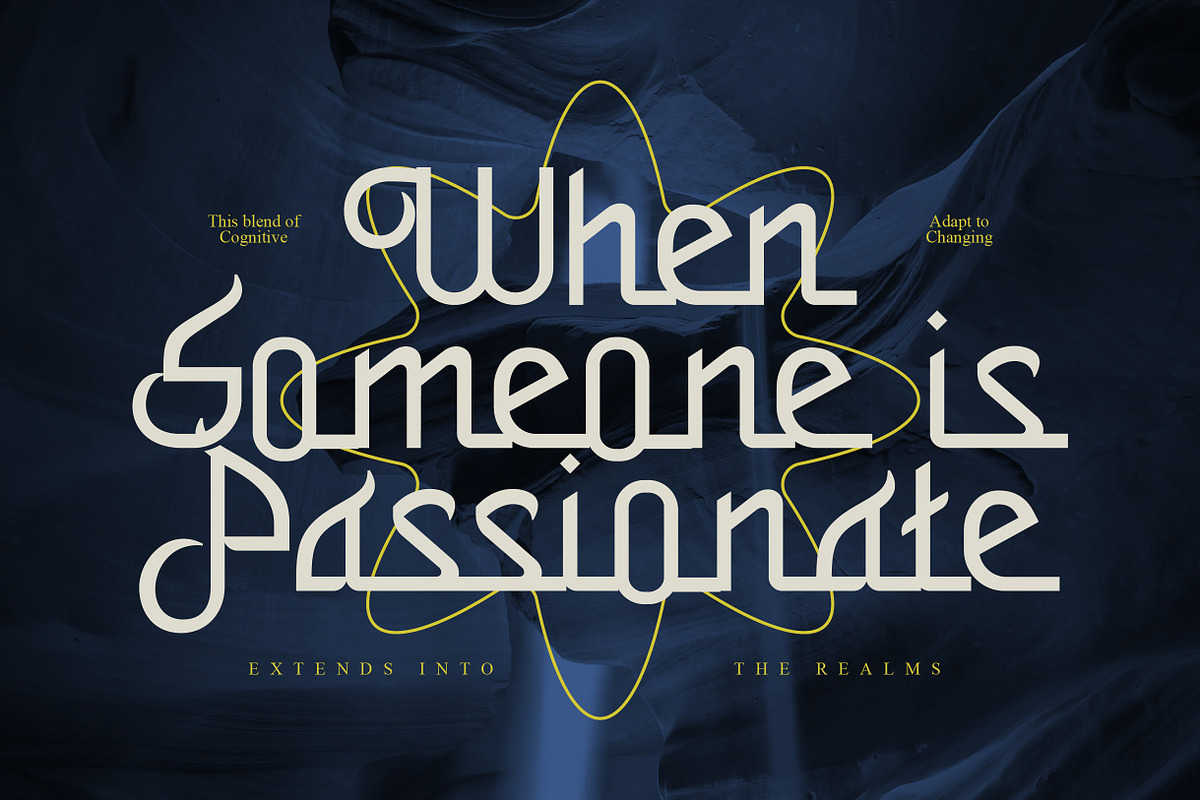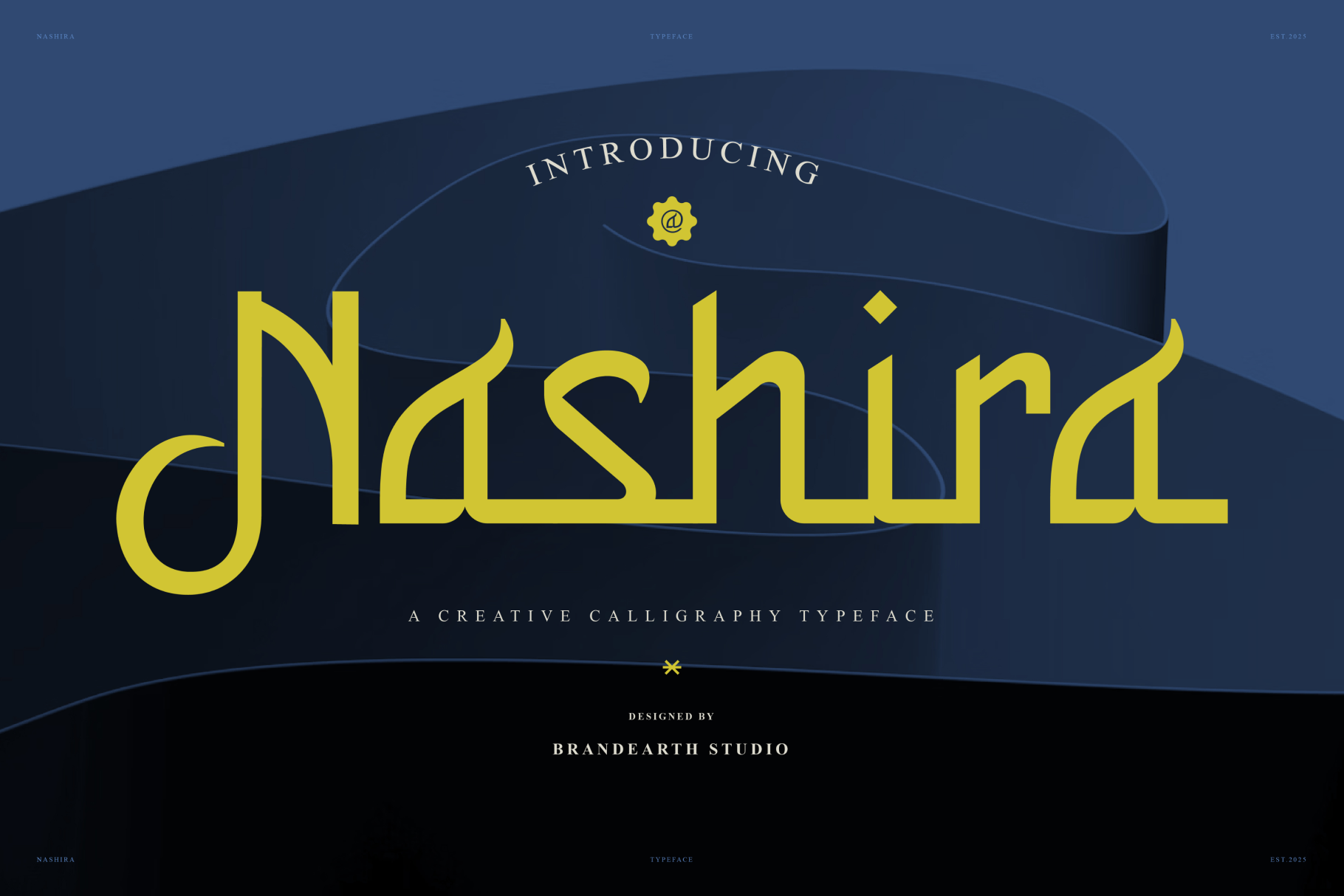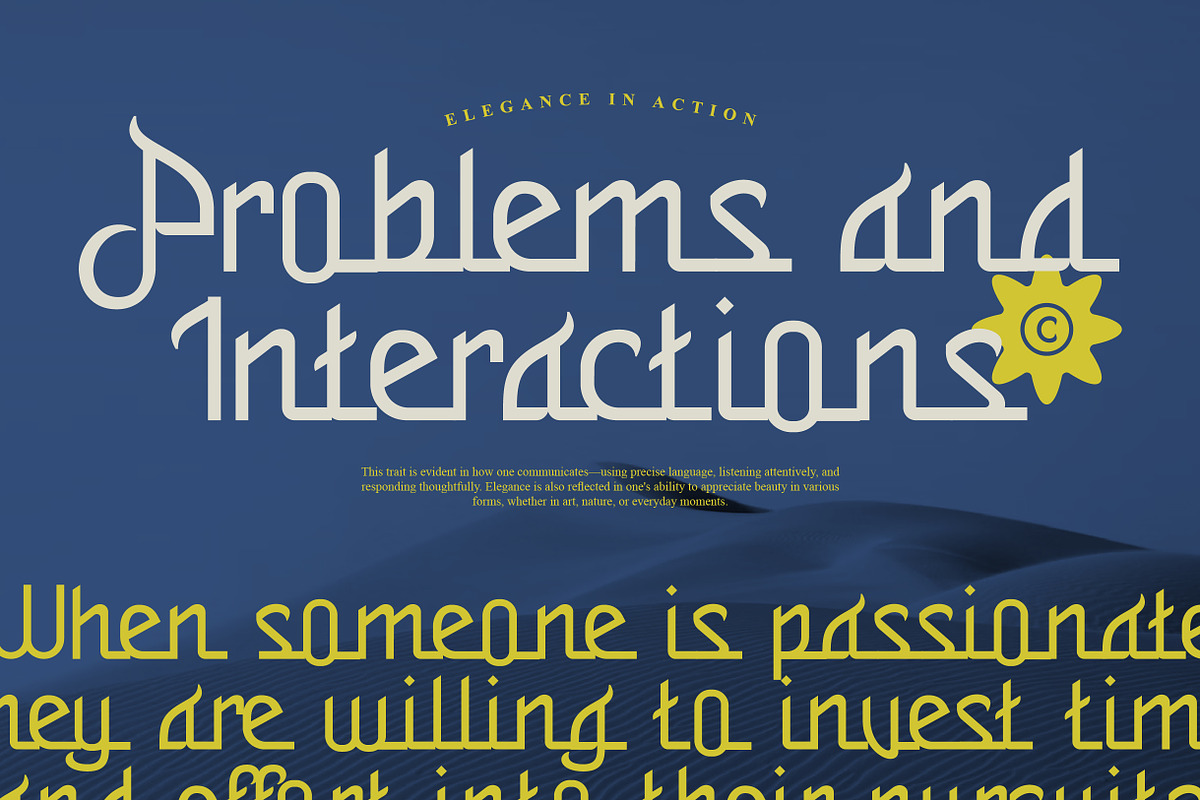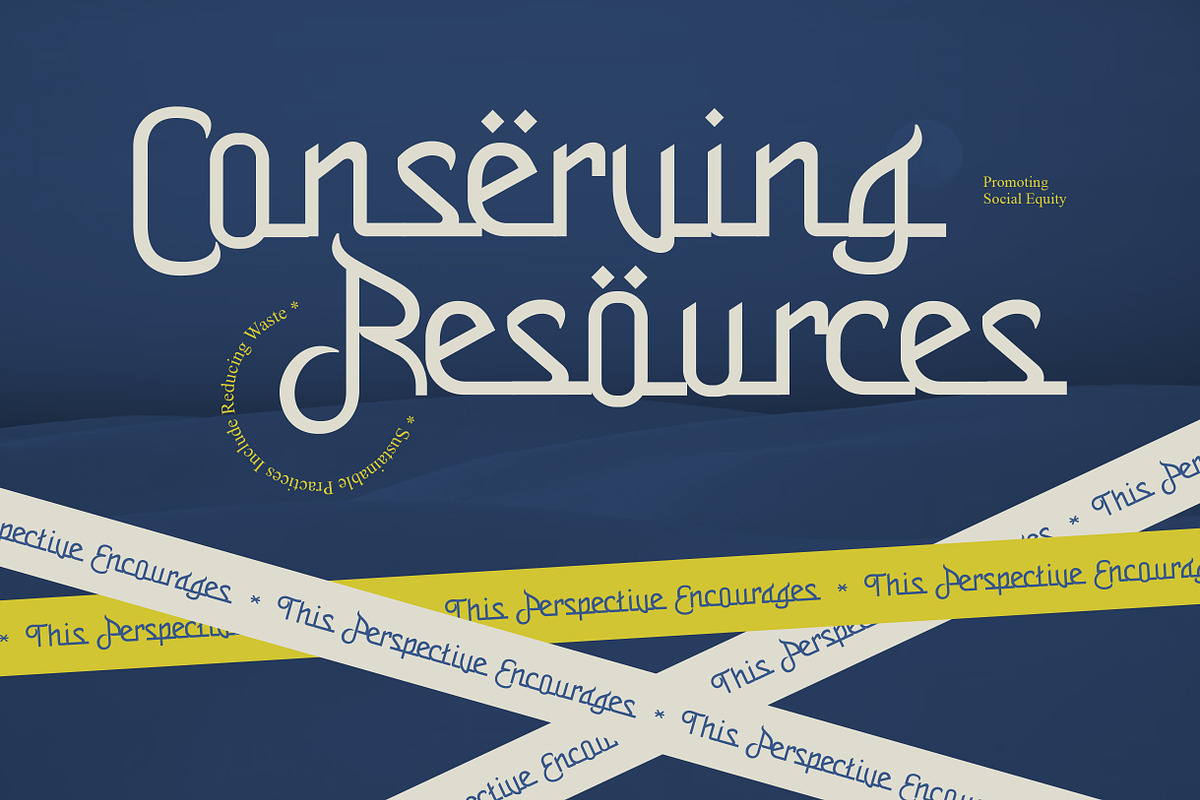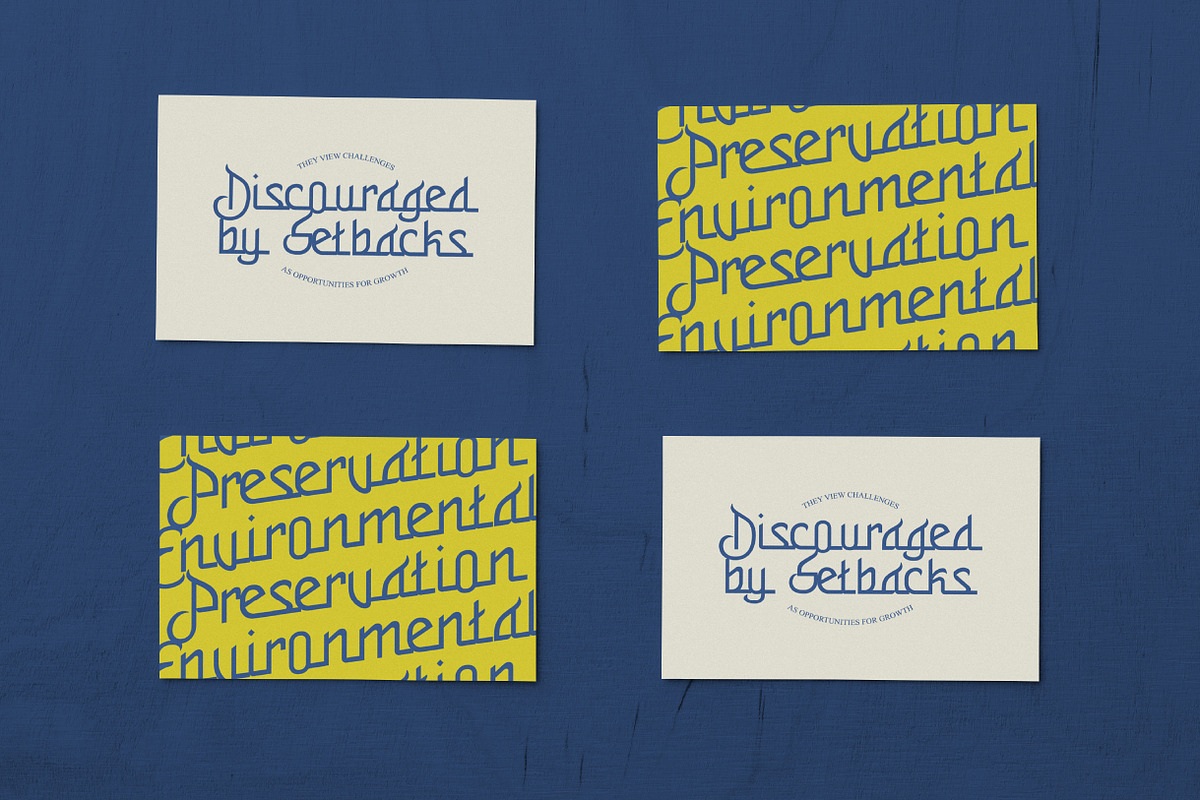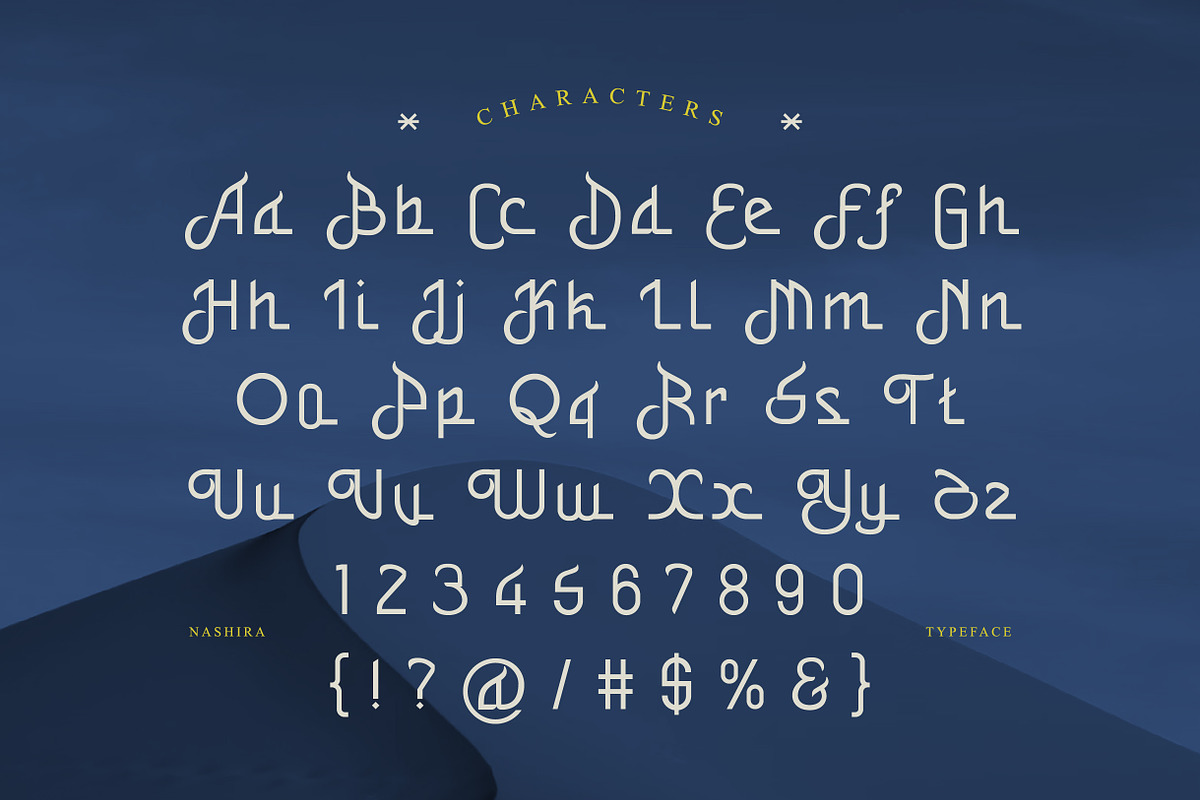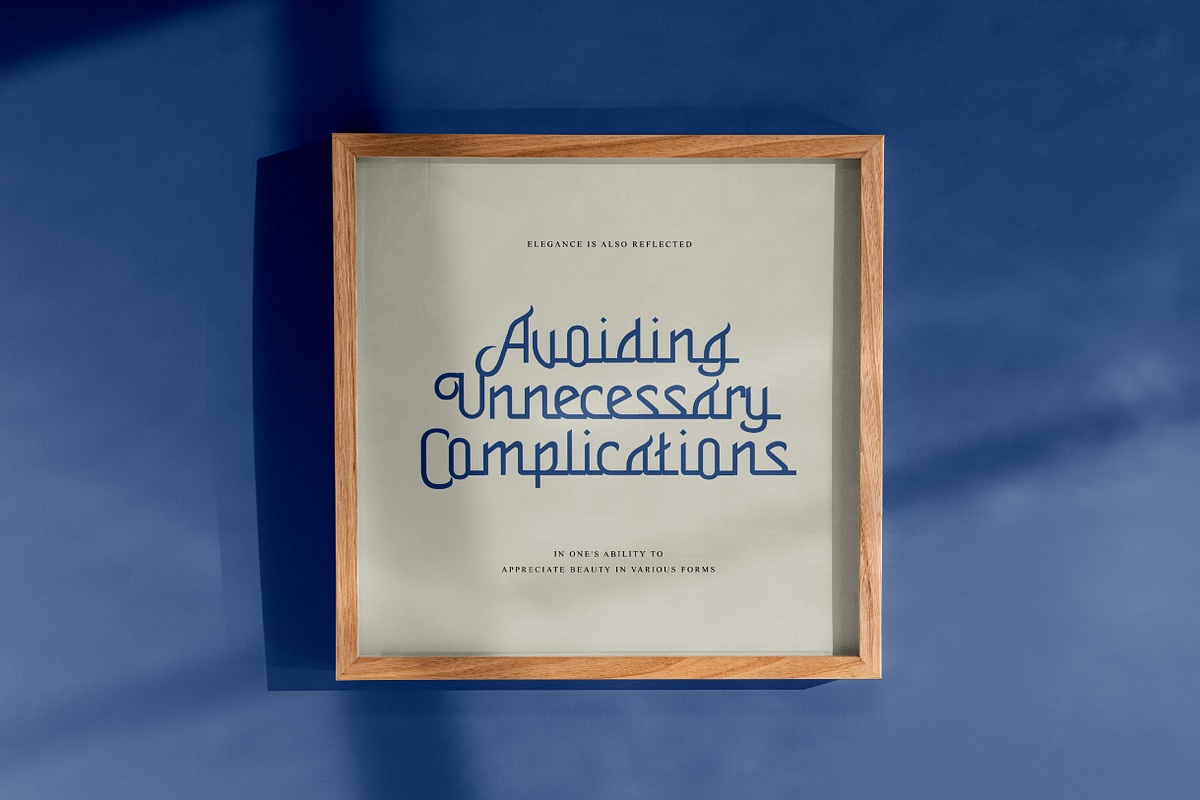
Nashira Creative Font
Elevate your designs with Nashira Creative Font, a font perfect for adding elegance and style to your projects. Whether it’s for quotes, logotypes, magazine headers, or more, this versatile typeface ensures your text stands out beautifully.
Main Features
- Uppercase & Lowercase characters
- Numeral & Punctuations